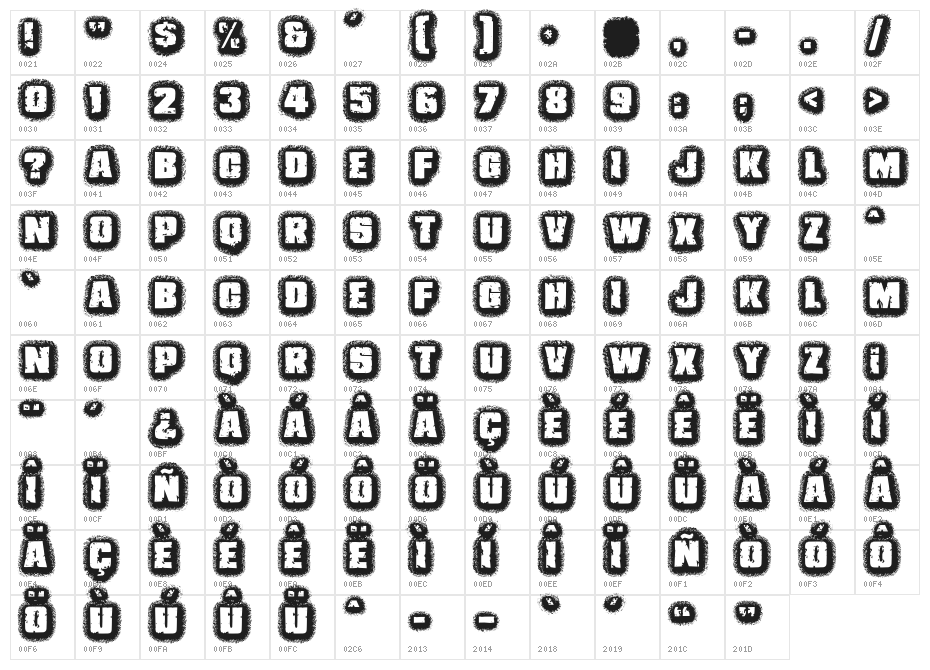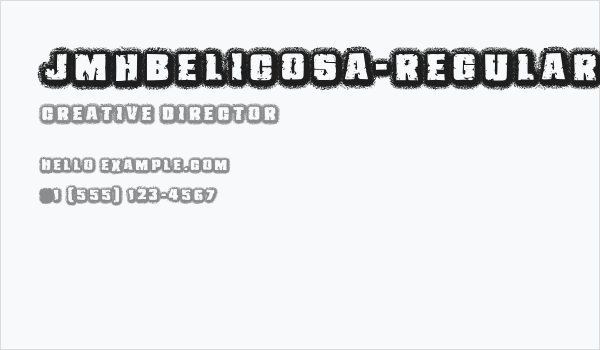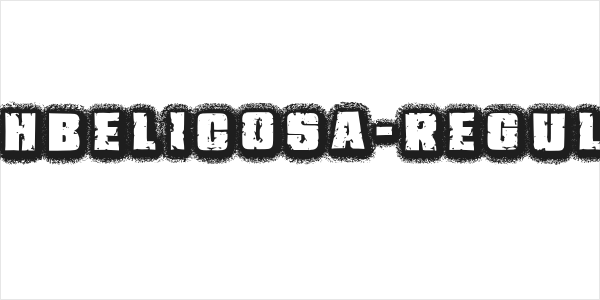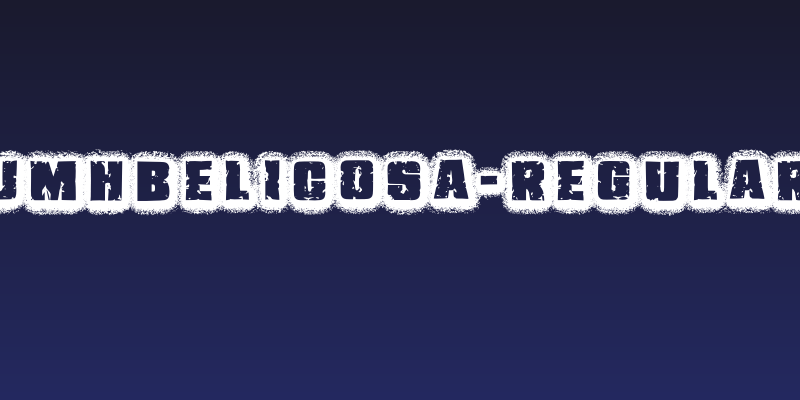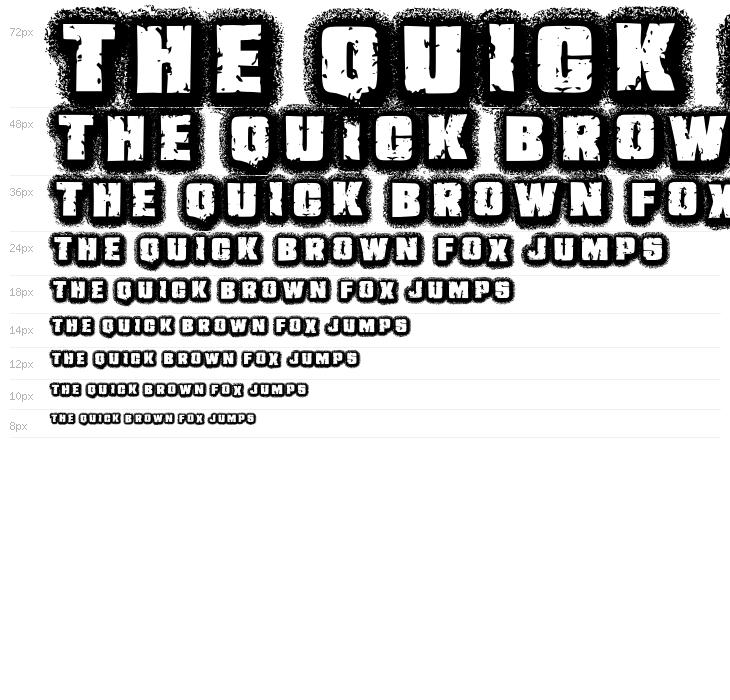
JMHBelicosa-Regular Font
JMHBelicosa-Regular Description
This font features a bold, distressed style with a textured, grunge-like appearance. Each character is surrounded by a rough, uneven outline that gives it a rugged and edgy look. The uppercase letters are prominent and commanding, making them ideal for attention-grabbing headlines or titles. The numbers and special characters maintain the same distressed aesthetic, ensuring consistency across all text elements. This font's unique style is perfect for projects that require a strong, impactful visual presence.
| Proposed Projects | Ideal for posters, album covers, branding materials, and any design needing a bold, edgy statement. |